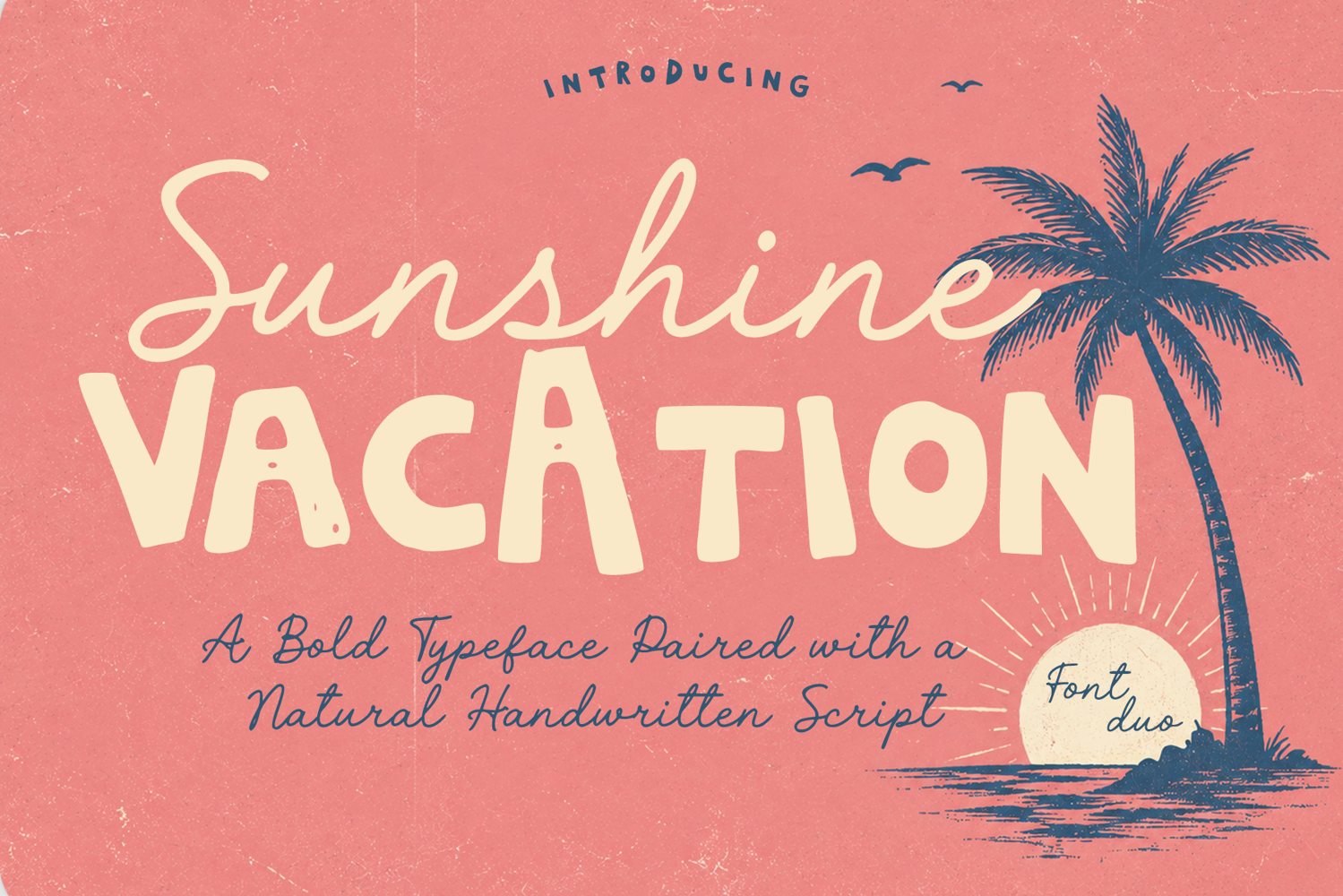
Sunshine Vacation
A bold and expressive font duo combining a playful display typeface with a natural handwritten script. The contrasting styles create a balanced combination that feels warm, relaxed, and full of character.
The bold typeface provides strong visual impact, while the handwritten script adds a casual and organic touch. Together, the combination works beautifully for modern vintage, tropical, summer, retro, and handcrafted design styles.